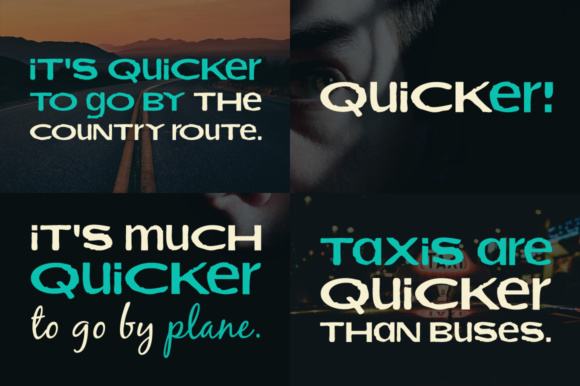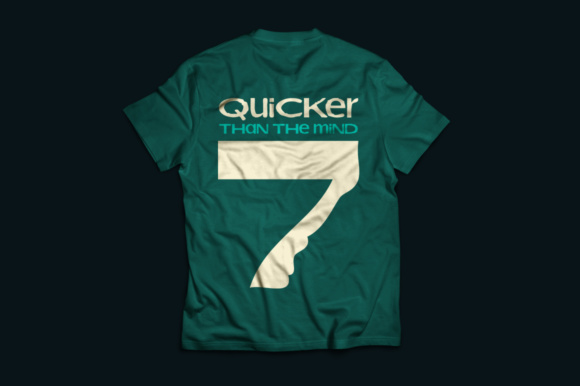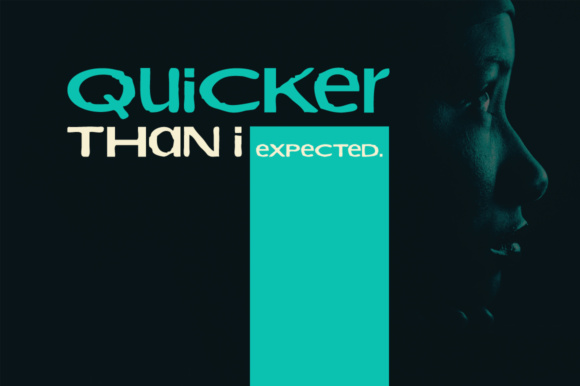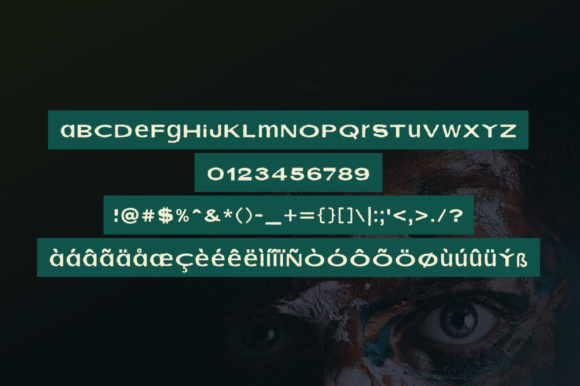
Introduction to Quicker Than the Eye Font
Have you ever found yourself stuck in a creative rut, struggling to convey your message or make your design truly pop? We’ve all been there – staring at a blank canvas, searching for the perfect font to bring our vision to life. And then, like a ray of sunshine, you stumble upon it – the Quicker Than the Eye Font. Its bold, eye-catching letters are the perfect solution to elevate your design and leave a lasting impression.
As a valuable design resource, the Quicker Than the Eye Font is a game-changer for any creative project. With its high-quality design and transparent background, it’s the perfect addition to any graphic designer’s toolkit. And the best part? It’s available for free download, making it accessible to designers of all levels.
Whether you’re working on a personal project or a client’s design, the Quicker Than the Eye Font is sure to make your work stand out from the crowd. So why wait? Dive into the world of this stunning font and discover the creative possibilities that await you.
Key Features of Quicker Than the Eye Font
- Unique, hand-drawn design perfect for creative projects and artistic endeavors
- Transparent background allows for seamless integration with any design, making it a versatile choice for various creative projects
- Includes a wide range of characters, including uppercase and lowercase letters, numbers, and special characters
- Perfect for designers, artists, and anyone looking for a unique, high-quality font to elevate their creative project
Honest Review: Quicker Than the Eye Font
As a designer, I’m always on the lookout for high-quality design resources to elevate my creative projects. Recently, I had the chance to try out the Quicker Than the Eye Font, and I’m excited to share my thoughts with you.
What works well: ✨ The Quicker Than the Eye Font has a unique, eye-catching design that’s perfect for adding a touch of whimsy to your project. The font is highly customizable, allowing you to adjust the color, size, and style to fit your needs. The transparent background option is also a great feature, making it easy to incorporate the font into your design without worrying about clutter.
- Customizable color, size, and style
Overall, I’m impressed with the Quicker Than the Eye Font and would definitely recommend it for designers looking to add a touch of creativity to their projects. While it may have some limitations, the font’s unique design and high-quality features make it a valuable resource for any design enthusiast.
Quicker Than the Eye Font
To get the most out of the Quicker Than the Eye Font, use it on a high-contrast background, and experiment with different font sizes and colors. You can also use the font with a transparent background to create a unique and eye-catching design.